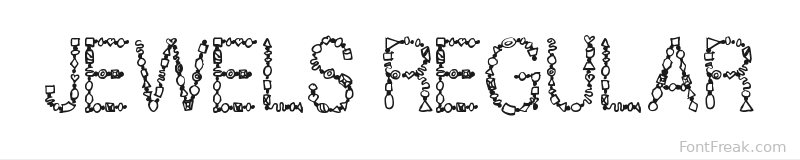
Jewels Regular
About Jewels Regular
Jewels Regular by Cloutierfontes is a captivating decorative font that embodies a unique blend of whimsy and elegance. This font is categorized as a display typeface, making it an excellent choice for attention-grabbing applications. Its design features intricate outlines and playful shapes reminiscent of various gemstones, which enhance its decorative appeal. The stroke weight is consistent, contributing to a harmonious look, while the spacing is thoughtfully arranged to maintain readability without sacrificing style. Each letter is adorned with elements that evoke the beauty of jewels, creating a captivating visual experience.
Jewels Regular is ideal for a variety of creative projects. It shines in wedding invitations, where its elegant and ornate character can add a touch of sophistication. Additionally, the font is perfect for movie posters, especially for films that have a fantastical or romantic theme, as it can evoke a sense of wonder and allure. Restaurant menus can also benefit from its unique charm, particularly those that want to convey a sense of luxury or specialty dining. Furthermore, graphic designers and content creators can use it for branding projects that require a distinctive and memorable typeface, making their designs stand out.
What sets Jewels Regular apart is its ability to combine functionality with an artistic flourish. This font is not just a typeface; it’s a statement piece that can transform any design into something extraordinary. With Jewels Regular font free download, you can infuse your projects with a touch of elegance and creativity that is truly remarkable.